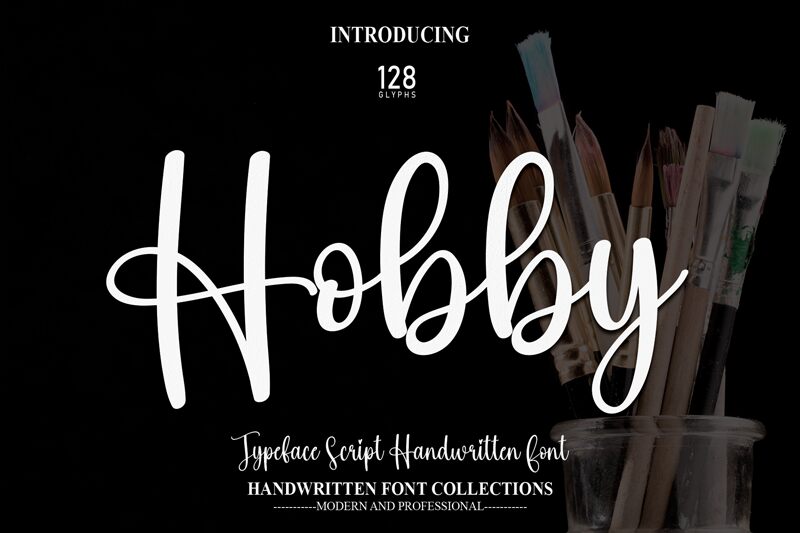
Hobby
Hobby, a mesmerizing calligraphy font designed by scratchones, combines elegance and playfulness effortlessly. With its semi-light weight, this font exudes a delicate charm that captivates the eye. Perfect for invitations, greeting cards, and personal stationery, Hobby adds a touch of sophistication to any project. Whether you're designing wedding invitations or creating whimsical logos for boutique brands, this calligraphy font will bring your creations to life with its graceful strokes and refined curves. Let Hobby be your creative muse as you embark on a journey of artistic expression.
The latest style letters are perfect for wall displays, wedding invitations, social media post logos, advertisements, product packaging, product designs, labels, photography, watermarks, invitations, stationery, and any project that requires taste handwriting.